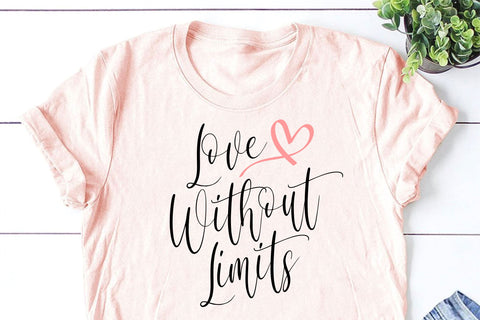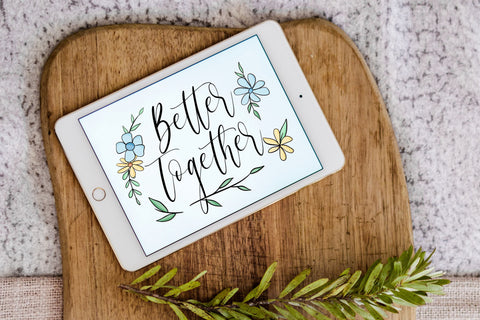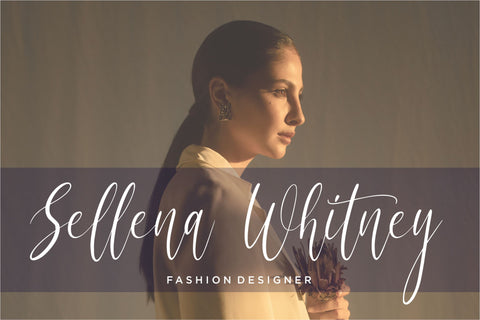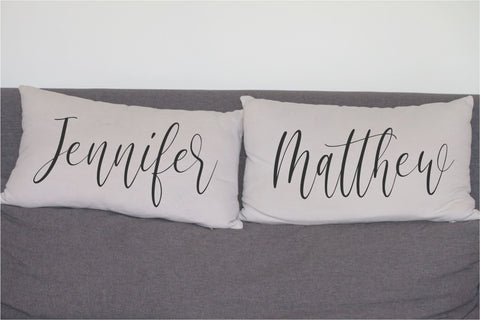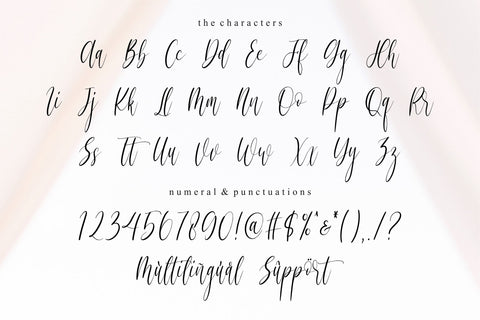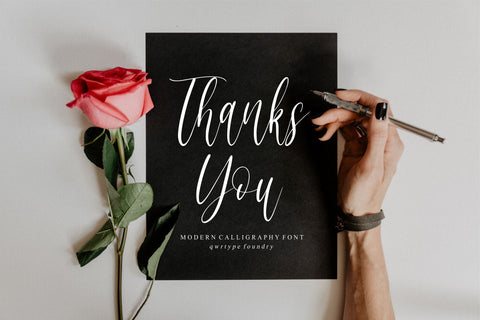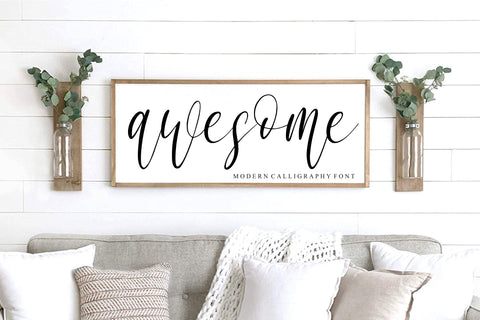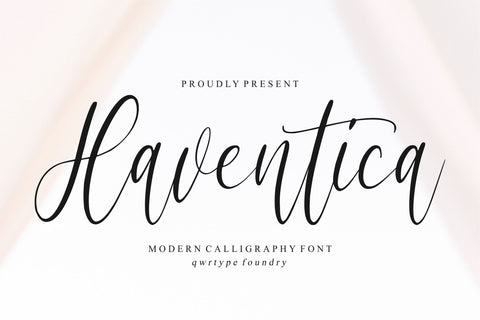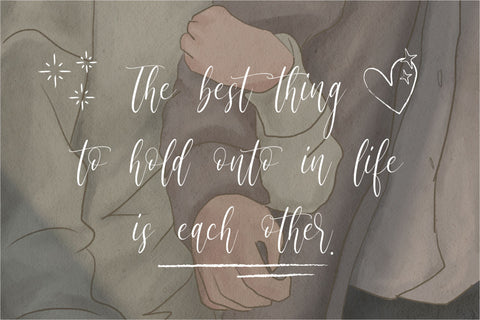
Haventica
Introducing by Qwrtype
Proudly Present, Haventica
Haventica is a Modern Calligraphy Font
Haventica is perfect for product packaging, branding project, megazine, social media, wedding, or just used to express words above the background.